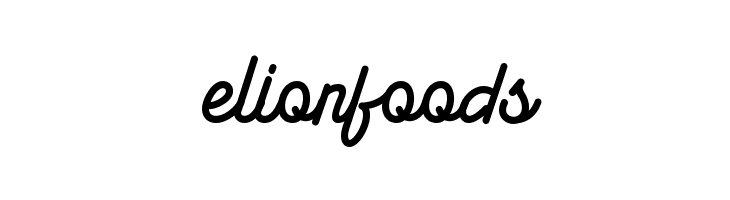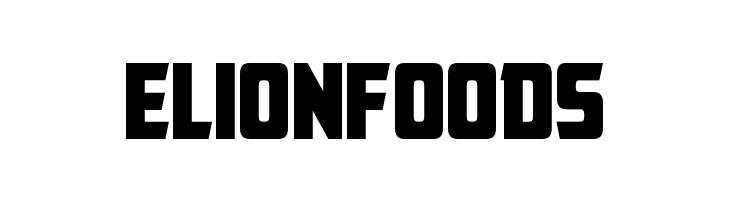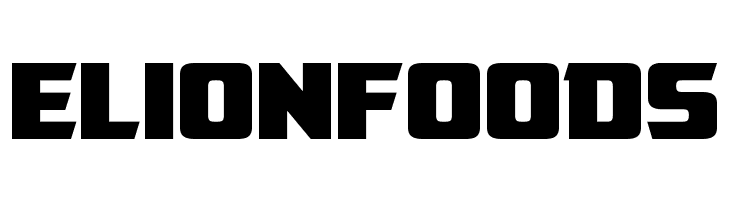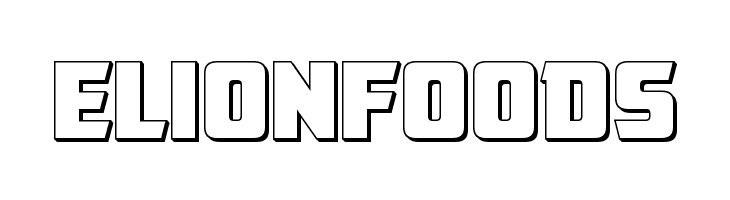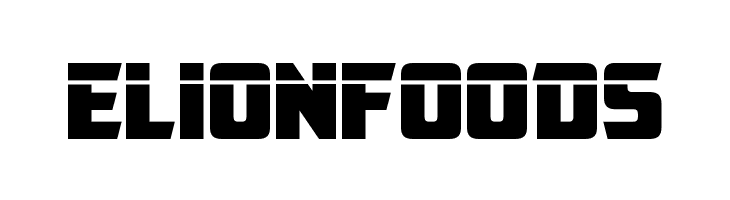
• American Kestrel Straight 3D
A bold, angular font with a 3D effect, ideal for impactful designs.
• American Kestrel Straight Cond
A bold, winged font with a dynamic and adventurous style.
• American Kestrel Straight Exp
A bold, dynamic font with wing-like extensions, ideal for impactful designs.
• American Kestrel Straight Laser
• American Label
A bold, decorative font with vintage flair and ornate serifs.
• American Label Rough
A bold, decorative font with a vintage, distressed look and ornate serifs.
• American Label Strip
A bold, decorative font with vintage elegance and ornamental flourishes.
• American Lemon
A bold, cursive script font with interconnected letters and decorative flourishes.
• American Life
• American Offset
A bold, dotted font with a unique, textured appearance.